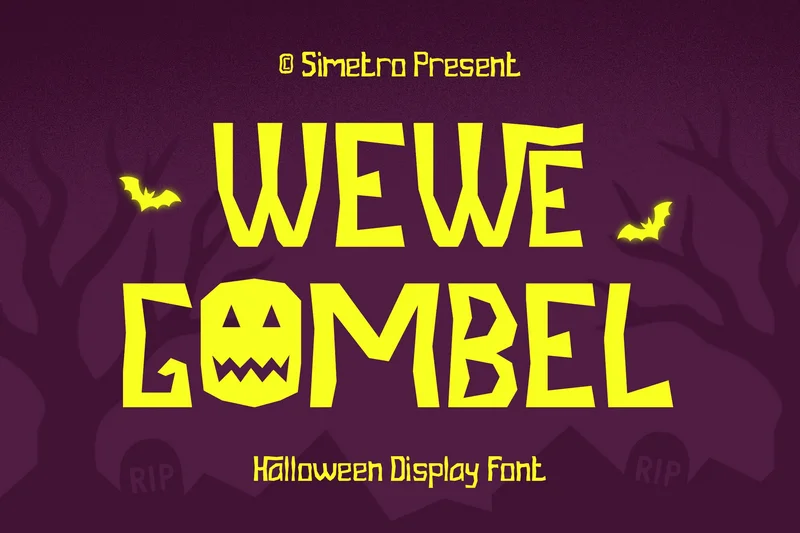
Wewe Gombel – Halloween Display Font
Wewe Gombel is a spooky yet playful display font, perfect for all things Halloween. Its jagged edges and quirky shapes give off a creepy but fun vibe, making it an excellent choice for haunted posters, horror titles, trick-or-treat packaging, party invitations, and branding projects. With both uppercase and lowercase letters, this font brings a touch of ghostly charm and mysterious energy to your designs. Whether you’re aiming for scary, fun, or both, Wewe Gombel is here to bring your spooky ideas to life.